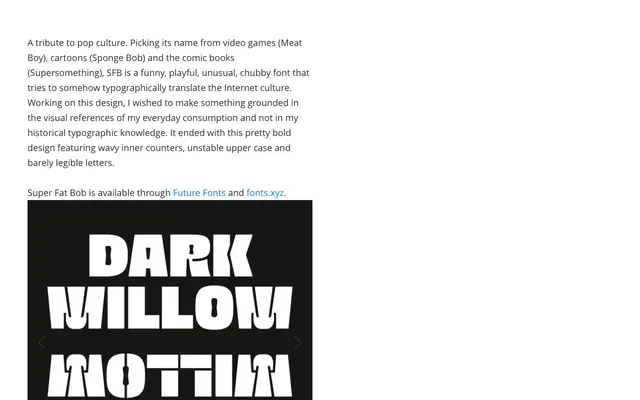
Super Fat Bob
Phantom Foundry · Jean-Baptiste Morizot
A chubby, pop-culture-saturated display face with wavy inner counters and deliberately unstable uppercase letterforms.
Inspired by video games, cartoons and comic books rather than typographic history, this face pushes legibility to its limits with heavily weighted strokes and squirming interior counters. The uppercase sits uneasily on the baseline, giving text an intentionally chaotic, screen-native energy. It suits posters, packaging or any context where visual attitude takes priority over readability.
A deliberately quirky, heavily stylised display face with exaggerated weight, wavy inner counters and unstable letterforms; squarely a novelty display typeface rooted in pop culture aesthetics rather than any traditional typographic lineage.